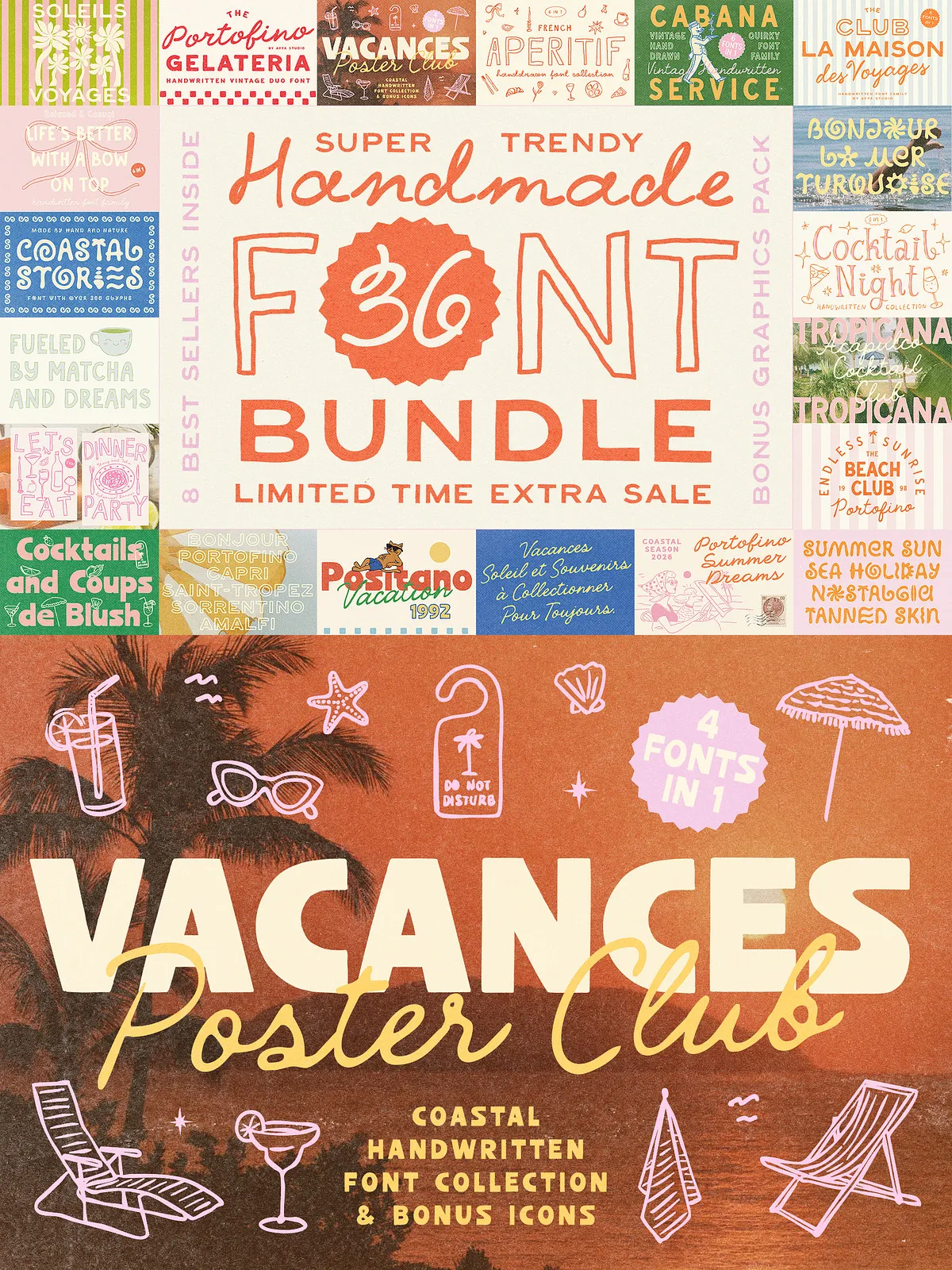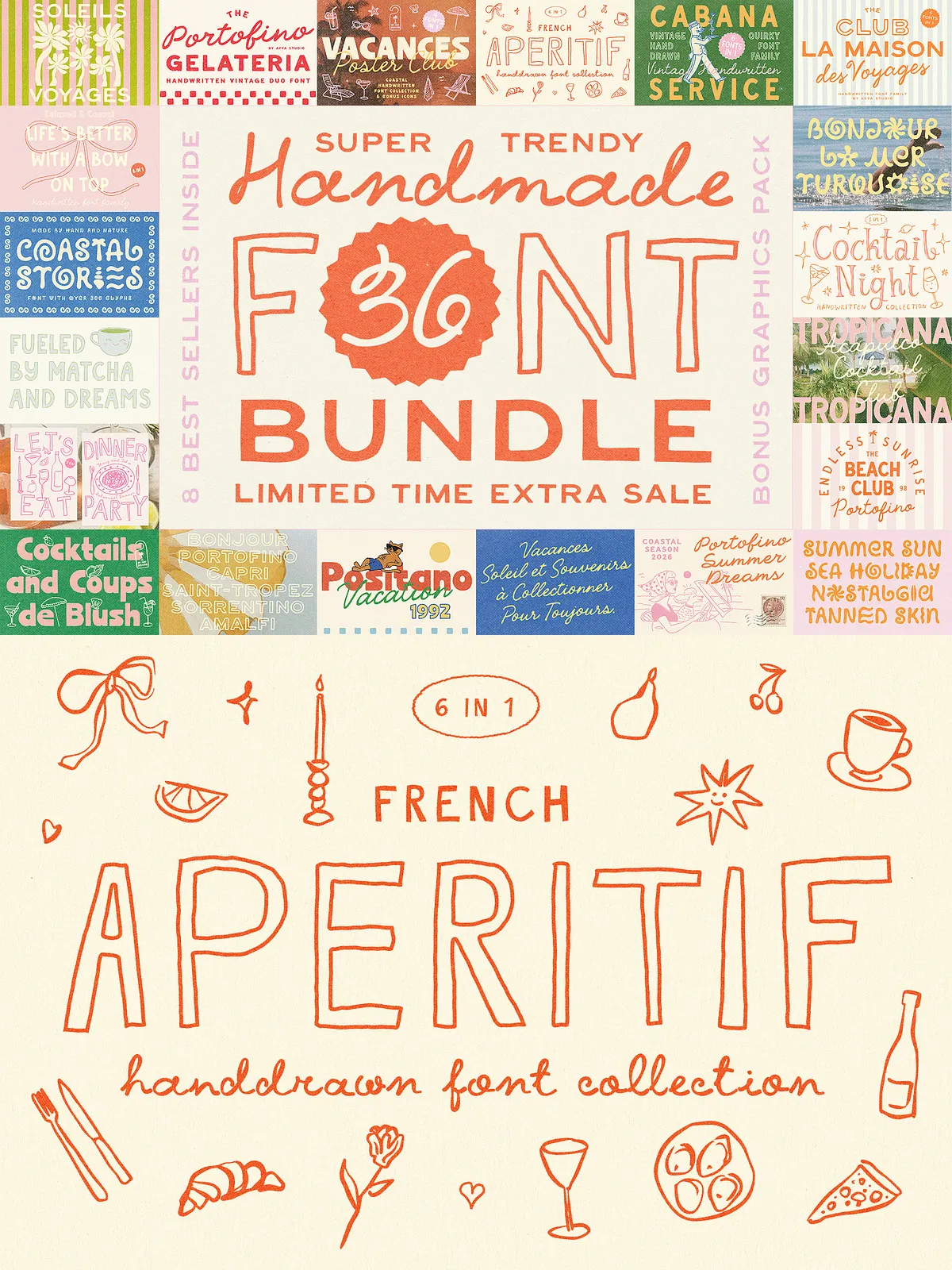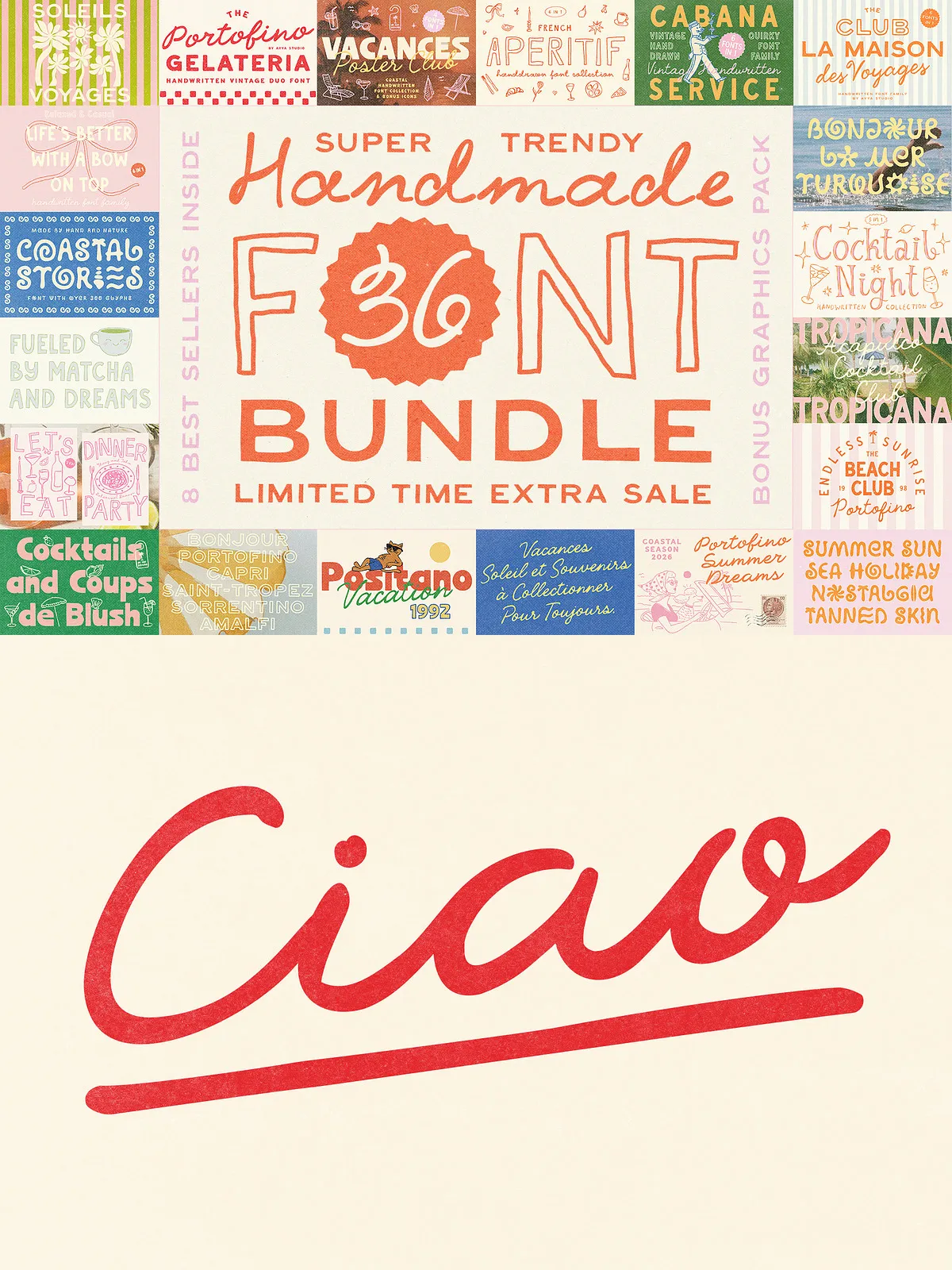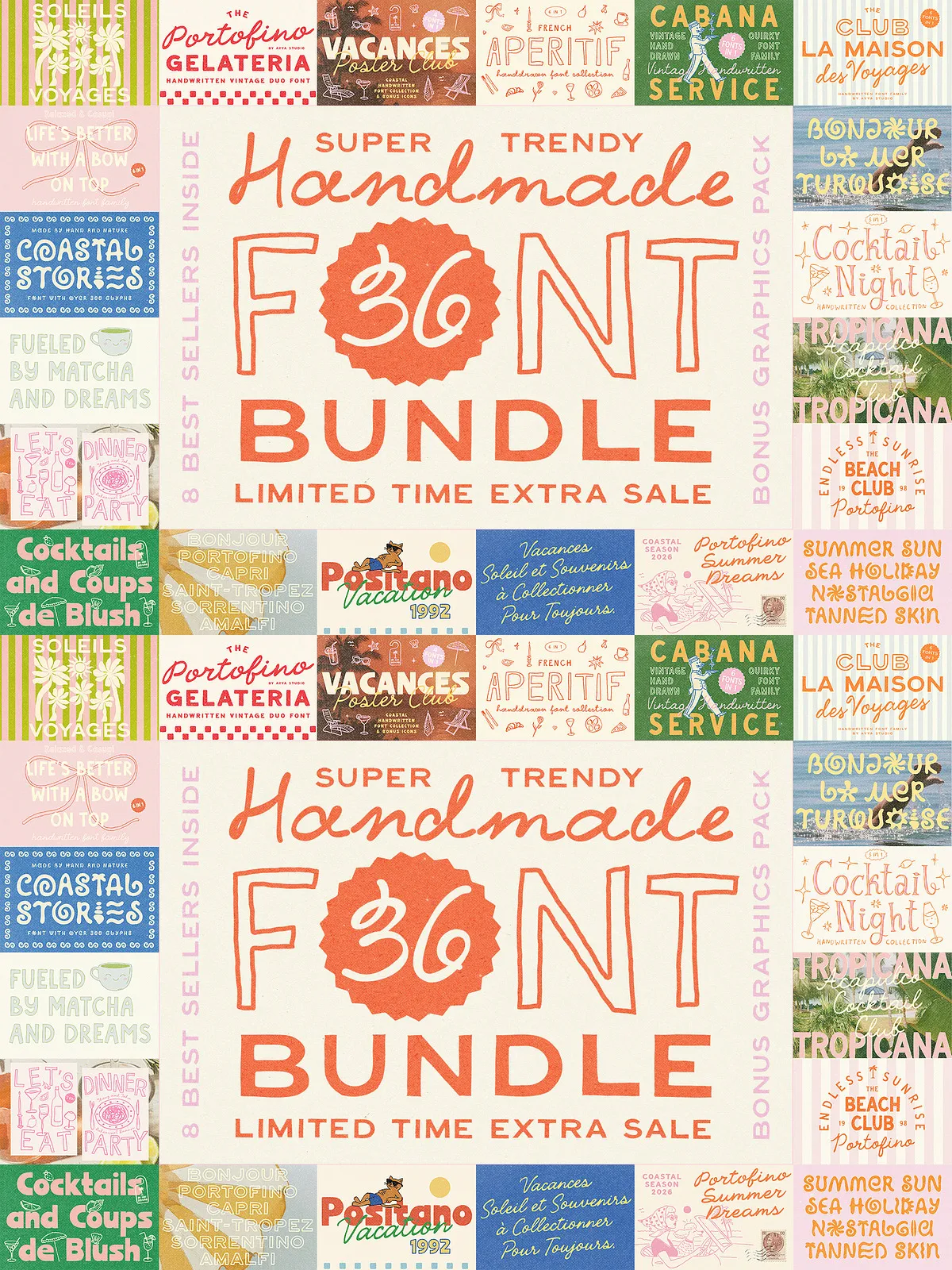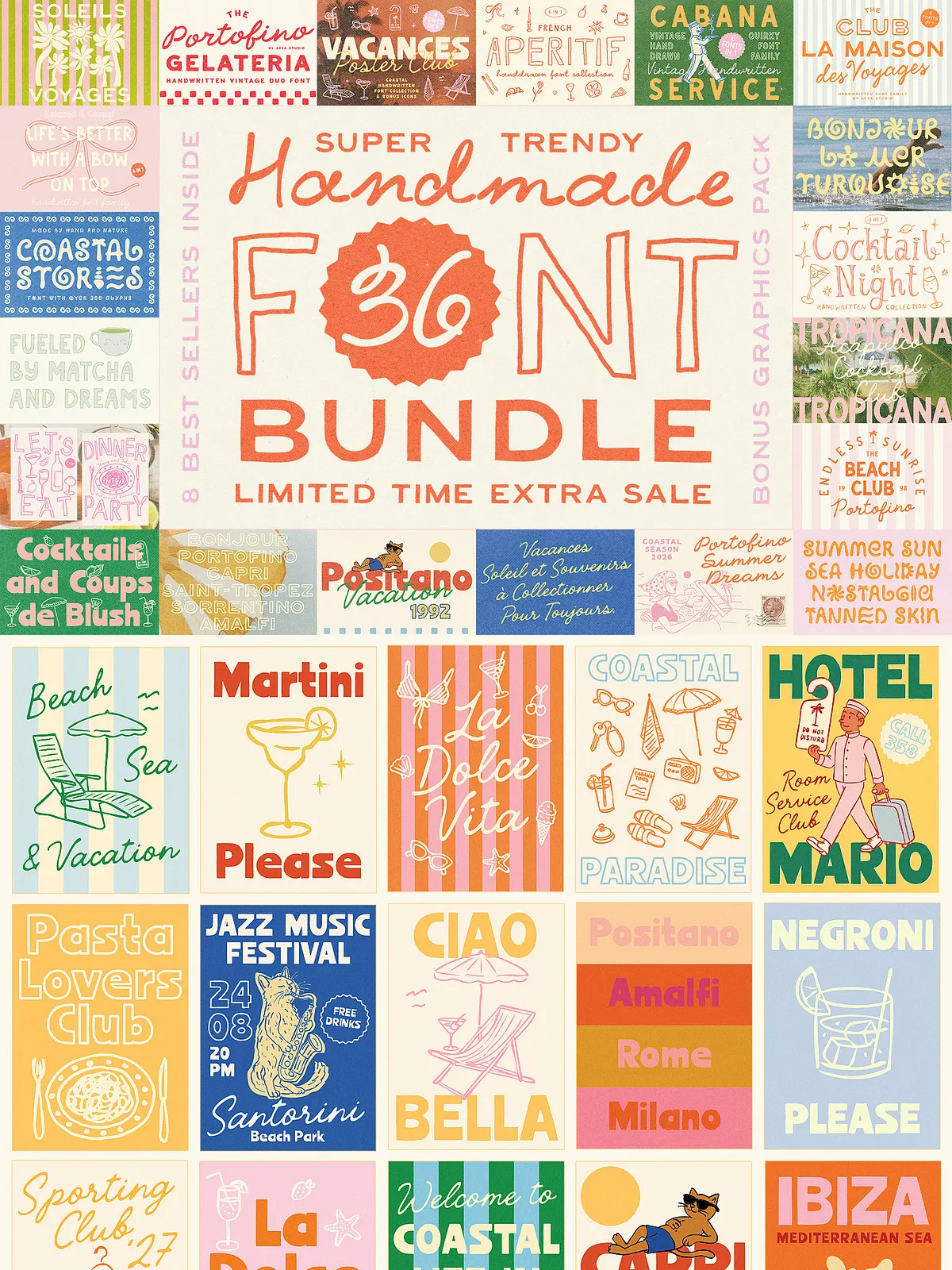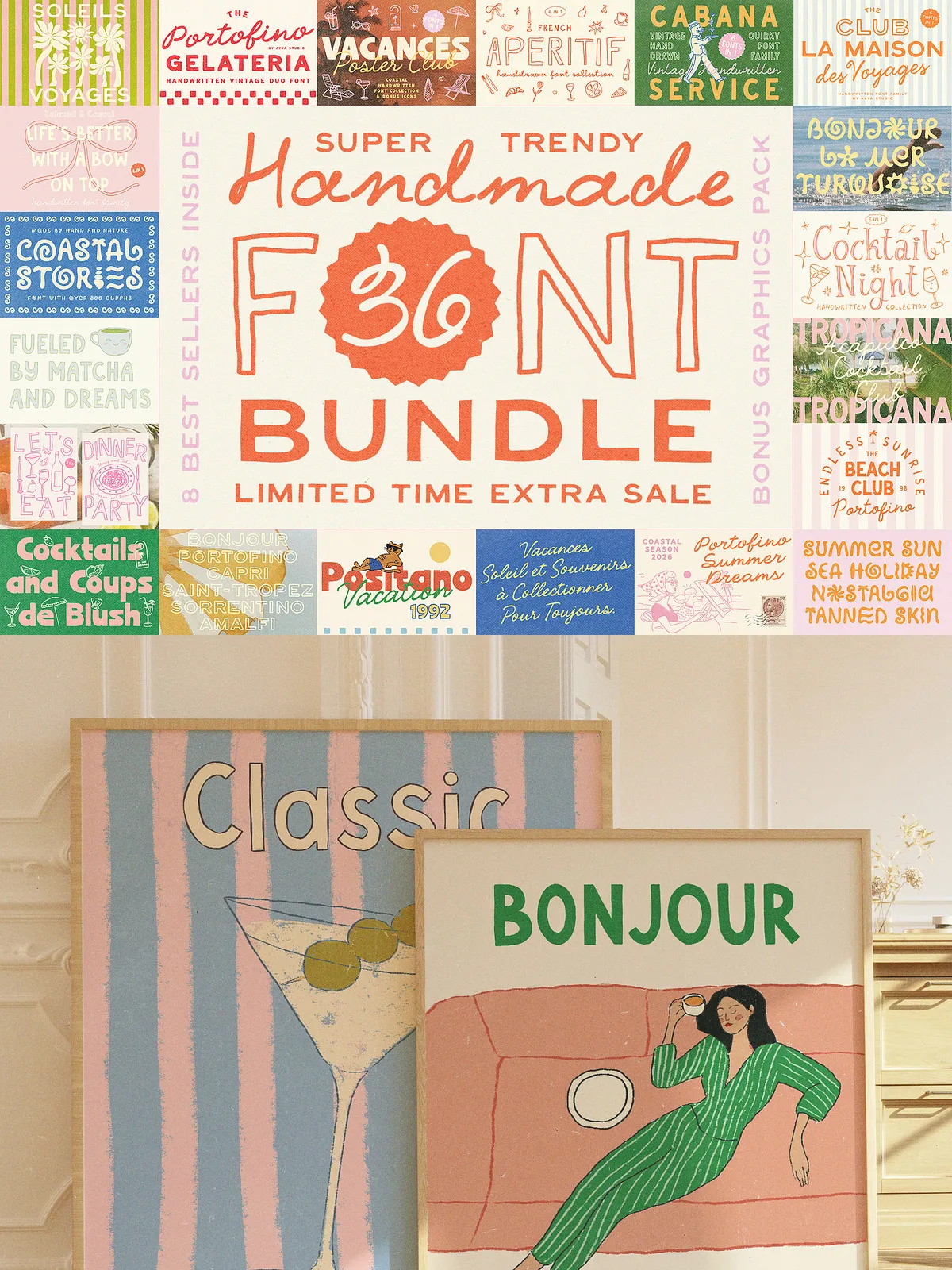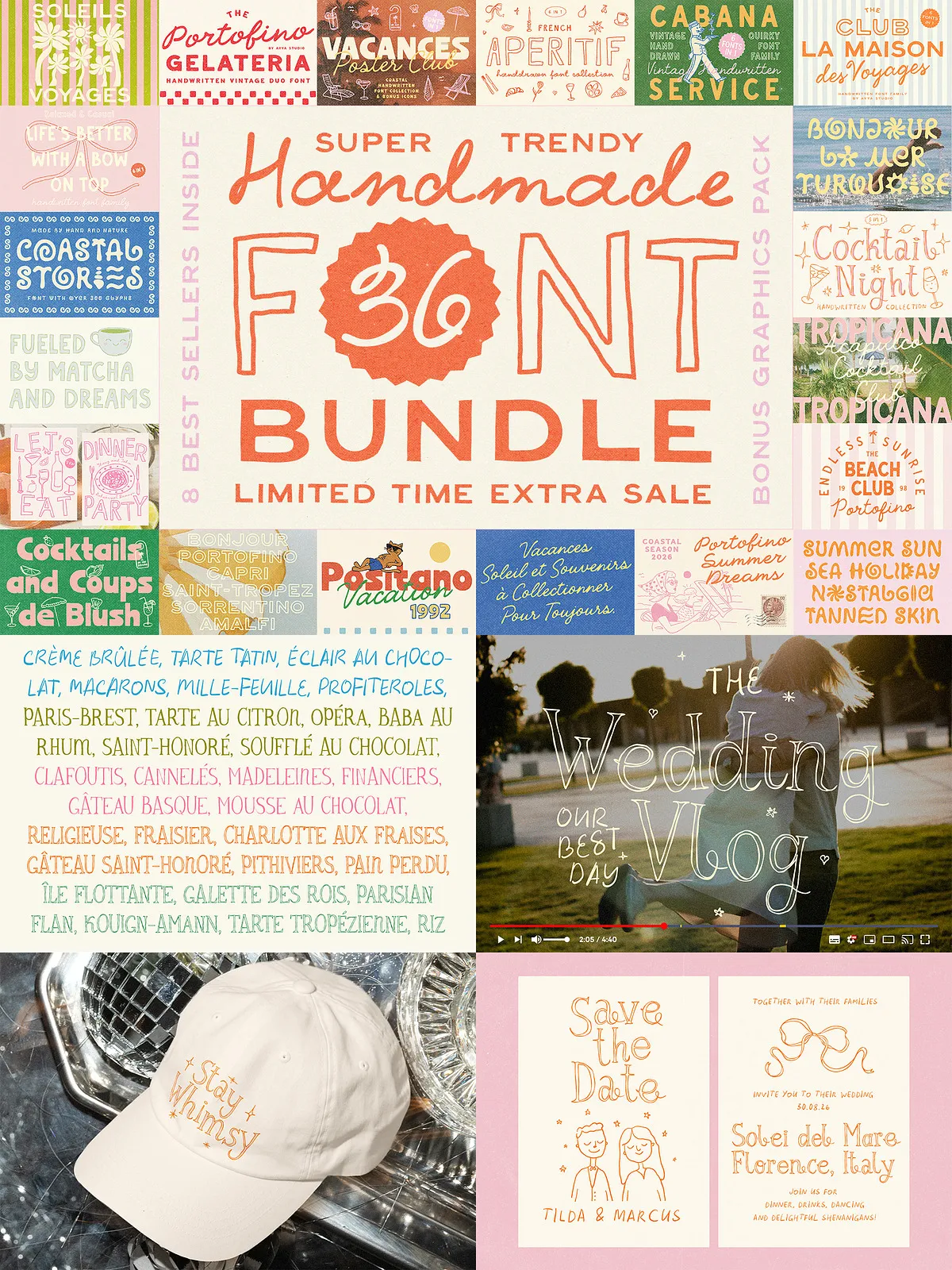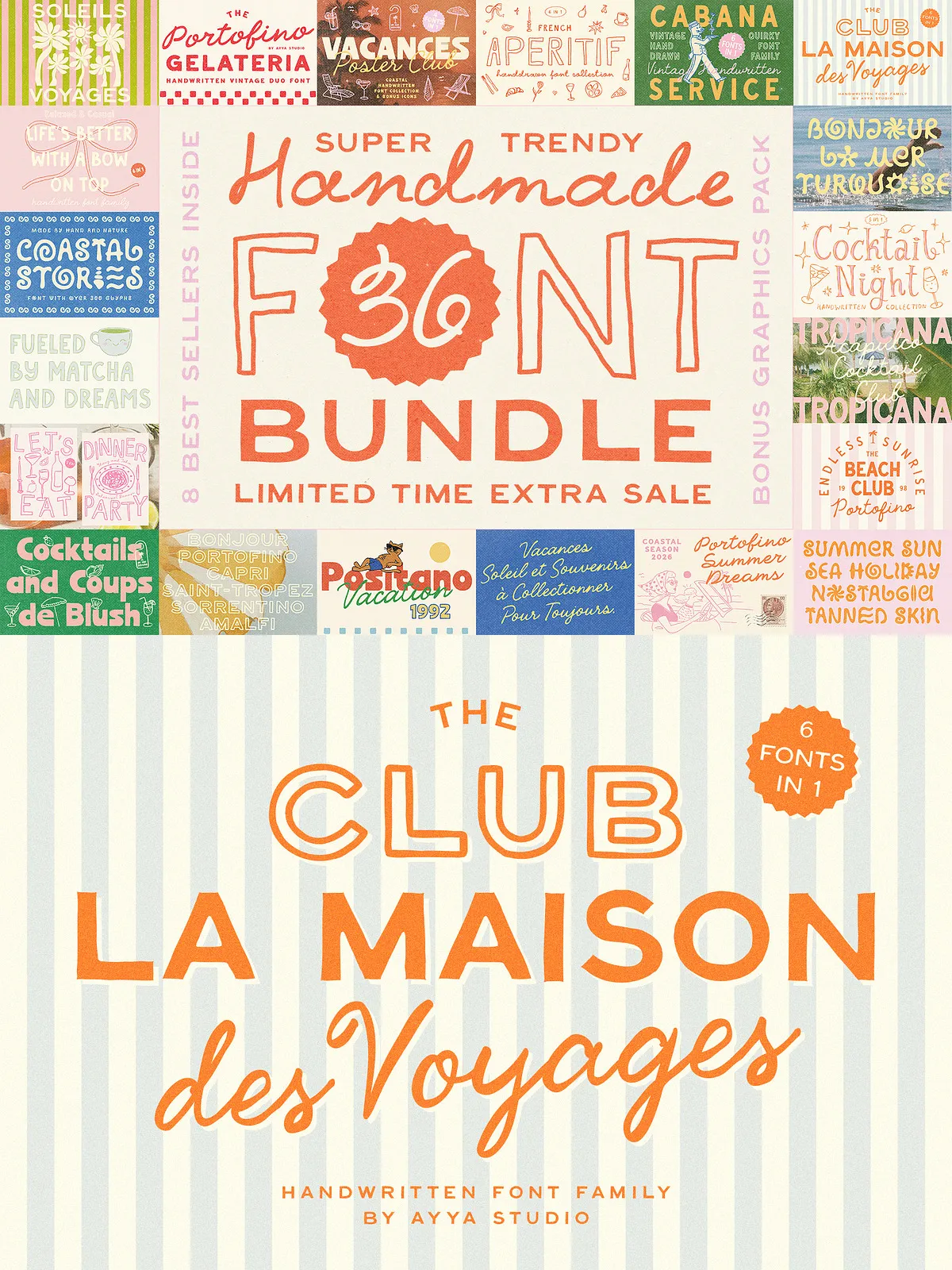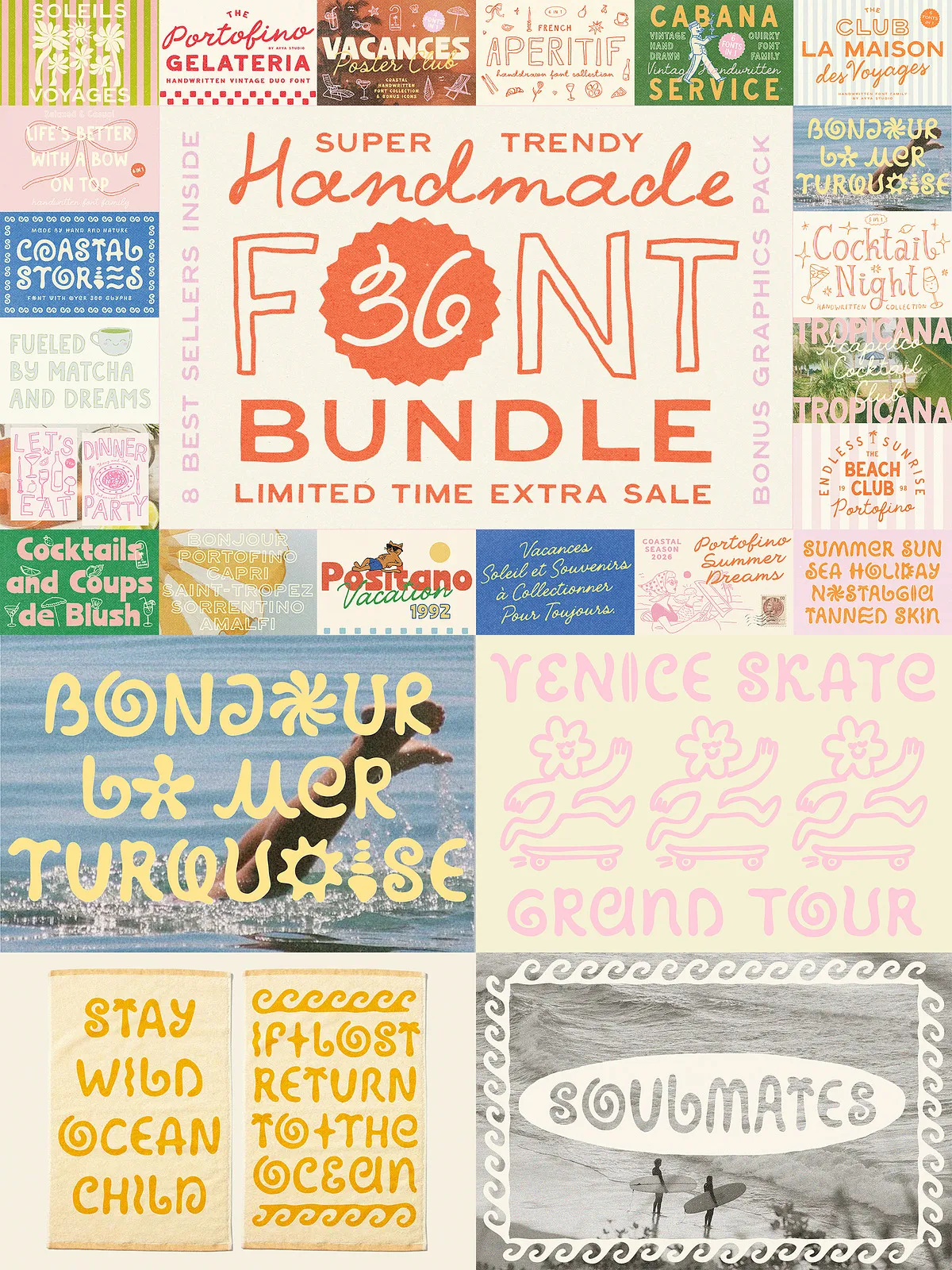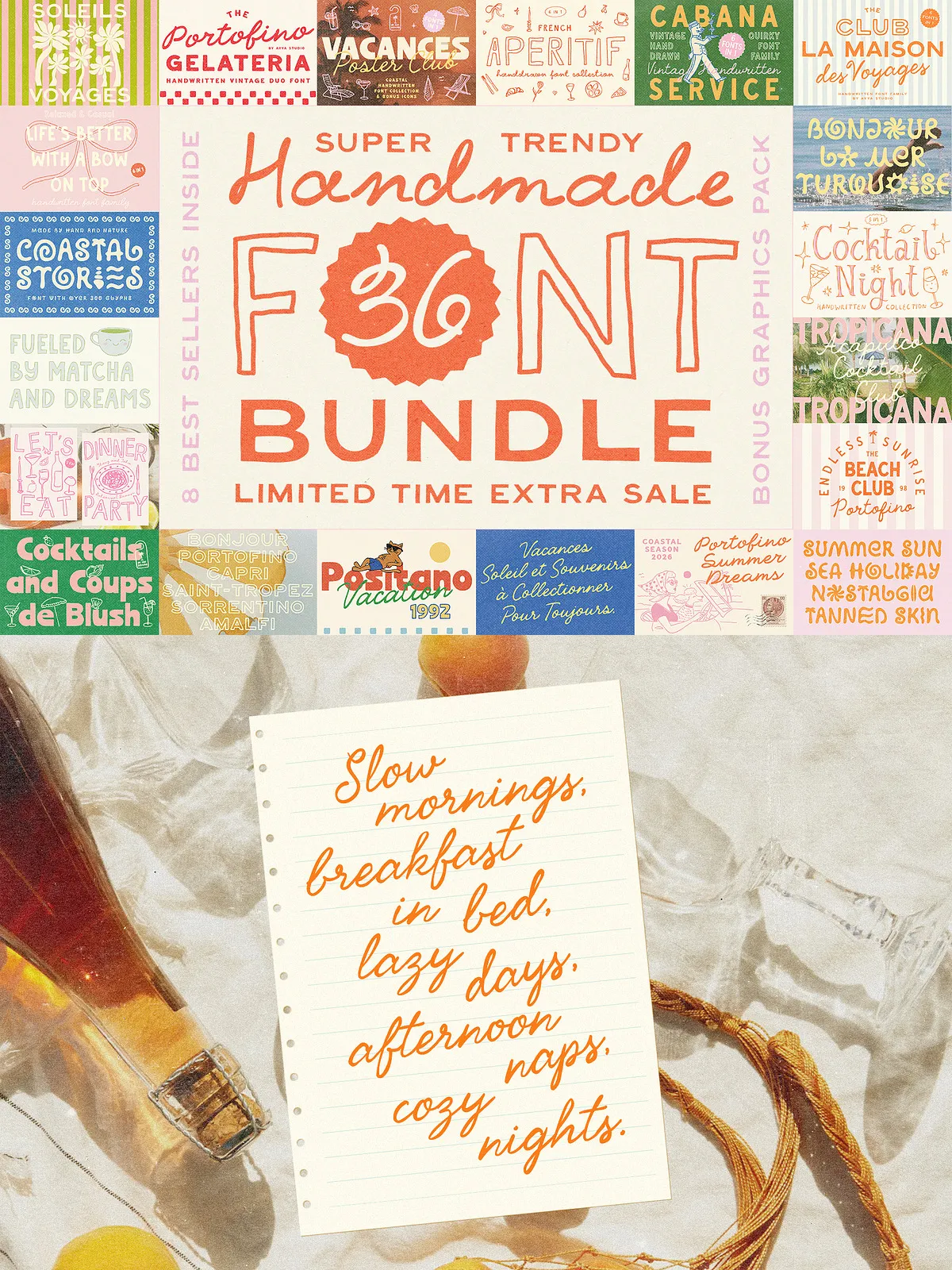
Modern Hand-drawn Trendy Font Bundle
This is a curated collection of our 8 bestselling font families — 36 handwritten fonts in total. For a short time only, you can get the whole library for just a little over $1 per font. Yay!
Every typeface here was drawn by hand with care and a love for detail. Most include ligatures, alternate characters, and wide language support, so you can create authentic, expressive lettering without extra effort.
Inside you’ll find: playful handwritten sans serifs and casual fonts, whimsical scripts with a vintage twist, elegant serifs and modern display styles, bold retro-inspired typefaces perfect for nostalgic branding.
This bundle works beautifully for branding and logos, posters, social media graphics and thumbnails, packaging, wedding invitations, editorial & magazine layouts, and so much more.
If you want a ready-to-go font library that mixes playfulness and timeless style, this set was made to save you hours and spark new creative ideas.